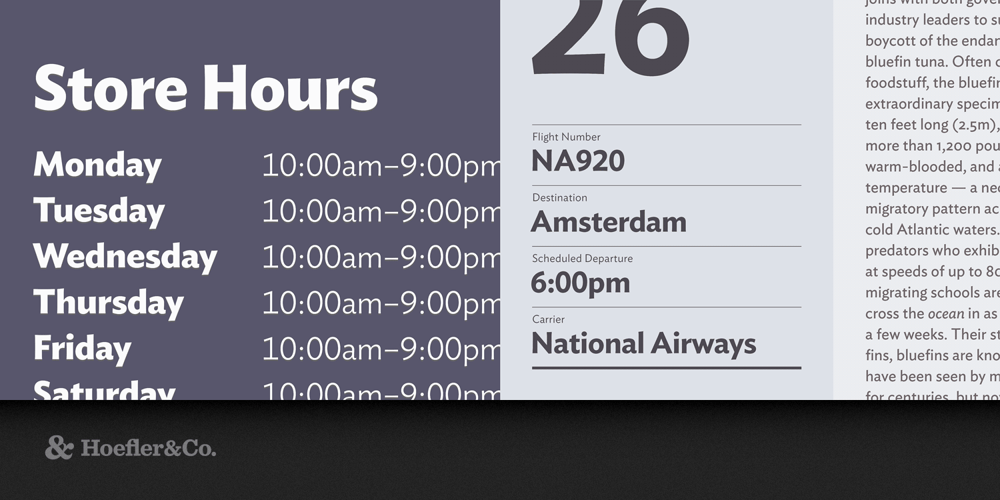
Ideal Sans Font Family was designed by Jonathan Hoefler and published by Hoefler & Co.. Ideal Sans contains 32 styles and family package options. Setting aside the easy pursuit of digital perfection, Ideal Sans favors handmade forms that help it achieve different goals: warmth, craftsmanship, and humanity. The Ideal Sans typeface was designed by Jonathan Hoefler beginning in 1991. A sans serif in the ‘humanist’ style, its capital letters reference the proportions of classical inscriptions, and its lowercase reveals vestiges of the calligraphic pen. Unlike most sans serifs, it avoids symmetry, repeated shapes, and even straight lines, instead using subtly bowed curves and delicate shifts in stress to achieve a warm and handmade feeling. First appearing in the pages of Entertainment Weekly in 1999, Ideal Sans was expanded into a larger family of typefaces for the Art Institute of Chicago in 2006, and was published by Hoefler&Co in 2011. From the desk of the designer: The first sans serif typefaces, designed in the early nineteenth century, bore the names of ancient cultures — “Egyptian,” “Ionic,” “Doric”, “Gothic” — even though these typefaces shared none of the qualities of genuine lettering from the ancient world. 2,500 years earlier, Greek inscriptions were taut and lively; by comparison, these nineteenth century printing types were impassive and deliberate. It would be nearly a century before typefounders would take an interest in inscriptional lettering, and begin to imbue their sans serifs with classical proportions, fluid kinesthetic movements, and references to calligraphic form. This new approach was nurtured by the calligrapher Edward Johnston, designer of the London Underground’s signature alphabet in 1916, and by Eric Gill, whose eponymous sans serif was produced by the Monotype Corporation a decade later. Because these designs were rooted in classical form, and their designers dedicated to traditional crafts, the new style became known as the Humanist sans serif. Nonetheless, these designs were often products more of the machine than the hand, chilly and austere designs shaped by unbending rules, whose occasional moments of whimsy were so out of place as to feel volatile and disquieting. Ideal Sans began as an attempt to reclaim the Humanist style, and to restore its missing humanity. Like all Humanist designs, Ideal Sans has classical rather than industrial proportions (its capitals vary greatly in width, from the almost circular O to the half-square E), and it favors traditional forms like the two-storey lowercase a and g. Unlike most sans serifs, it is allergic to geometry: the design contains almost no straight lines, very few symmetries, and it takes every opportunity to resist formulaic rules. These policies make Ideal Sans engaging at large sizes, and help it to perform at small ones, giving the design a warm, organic, and handmade feeling.